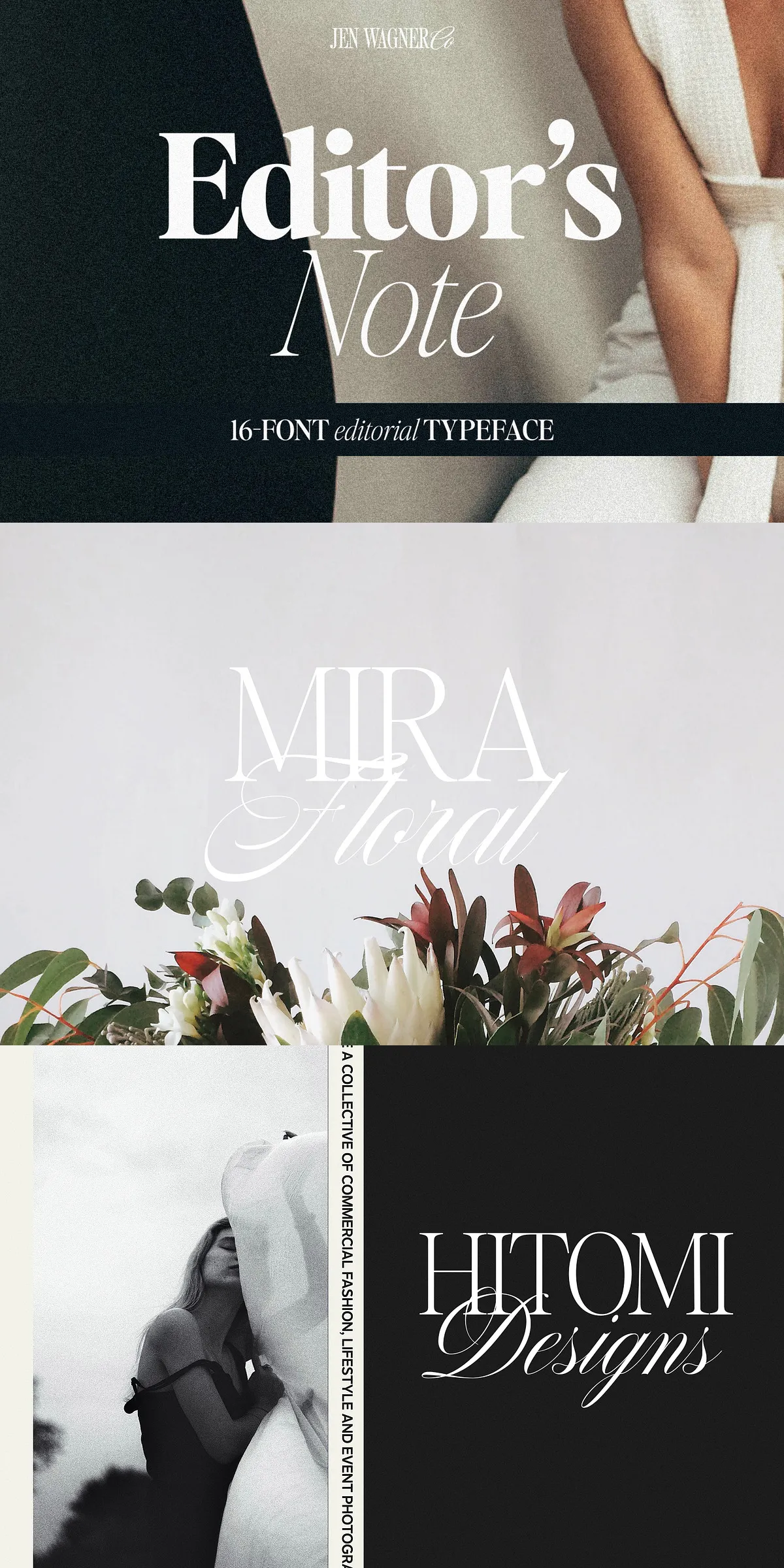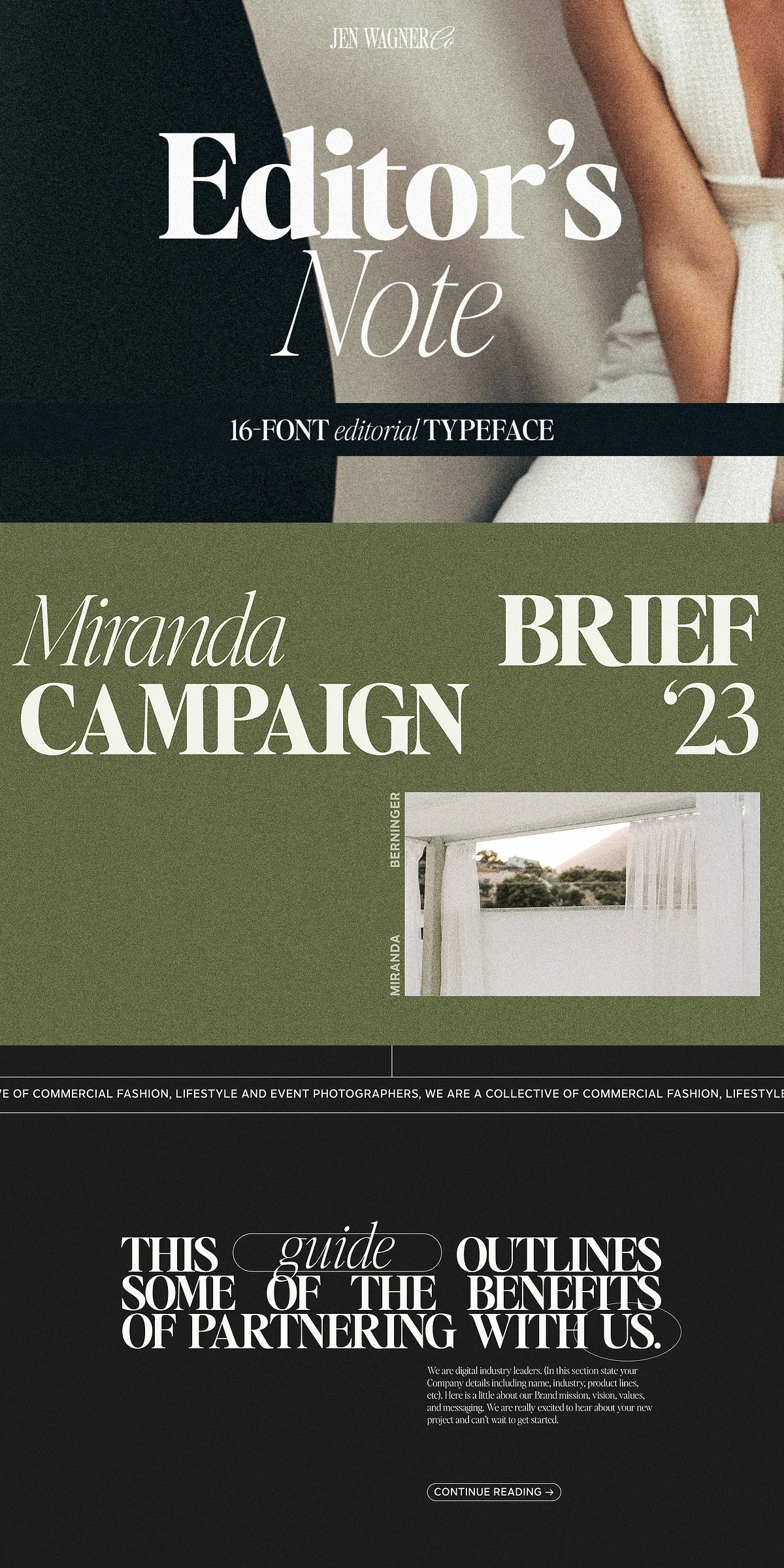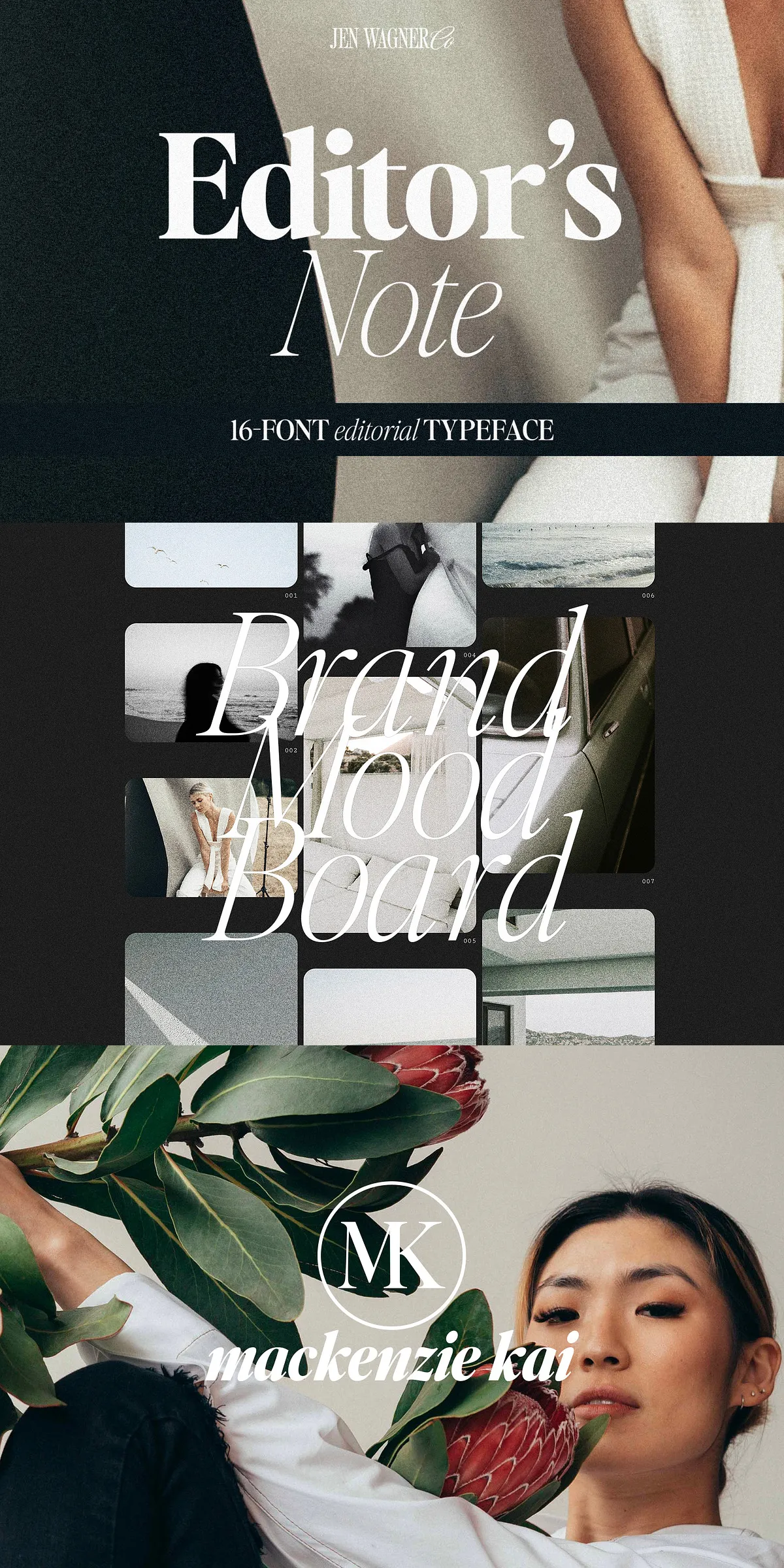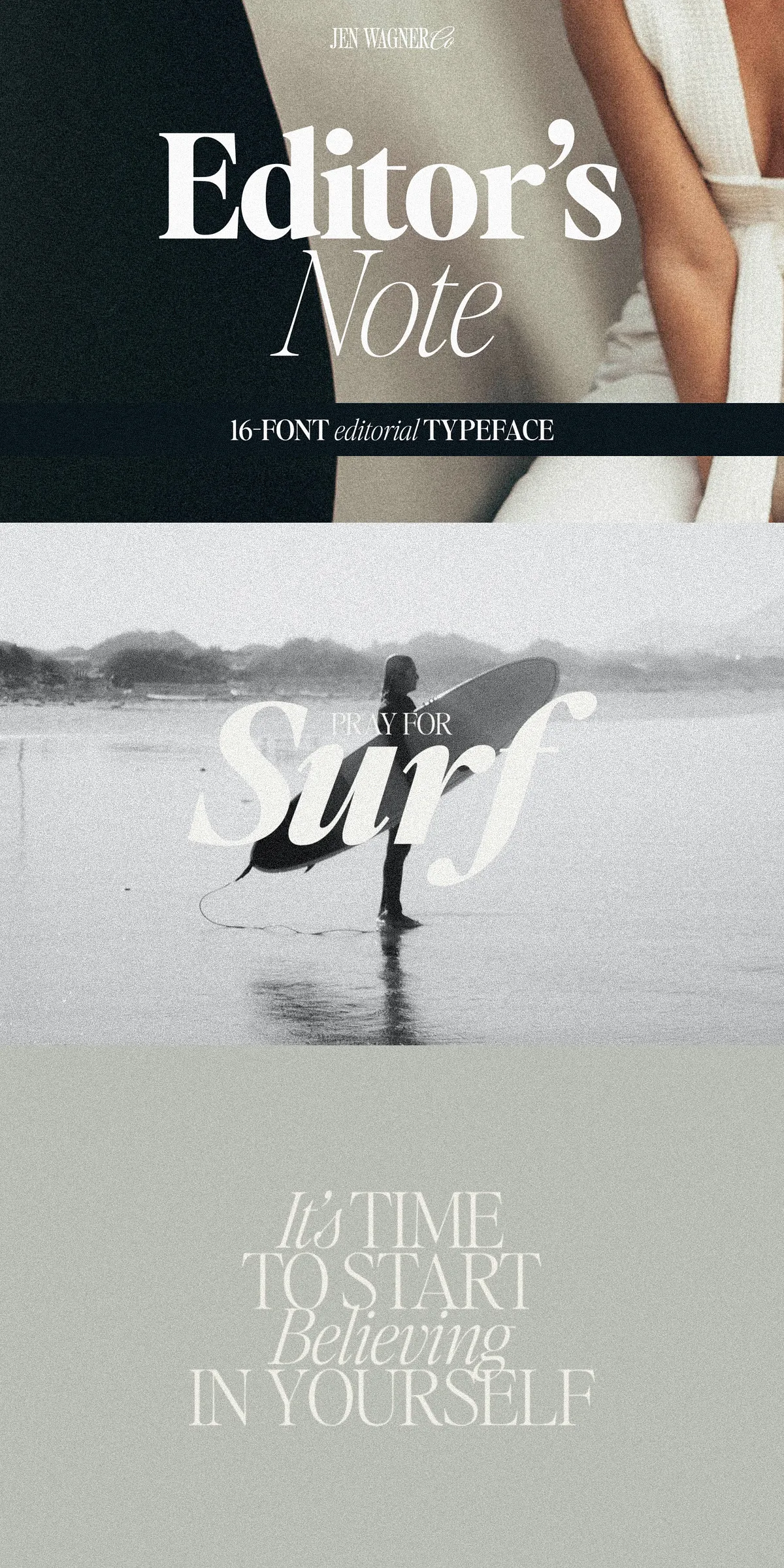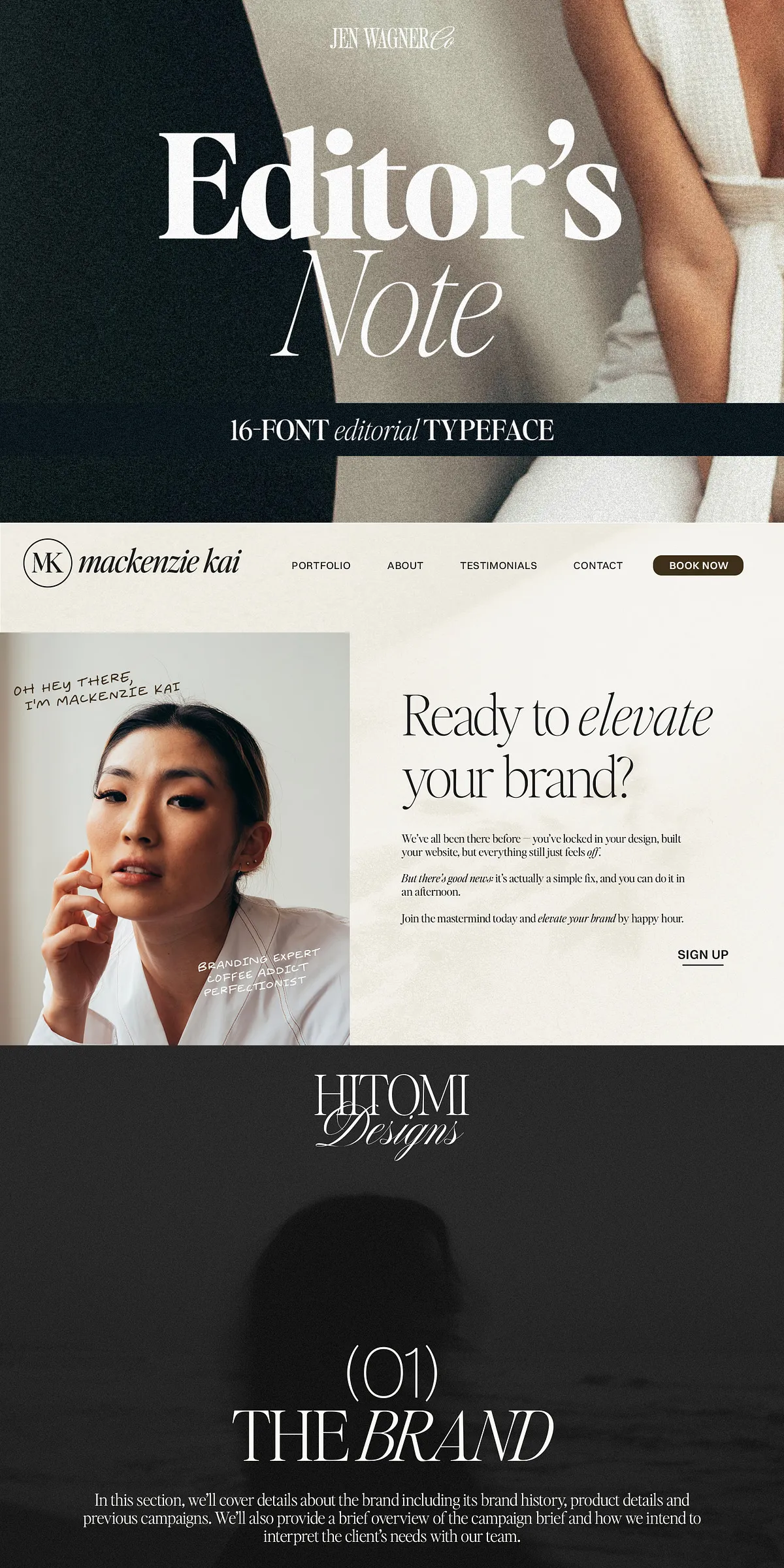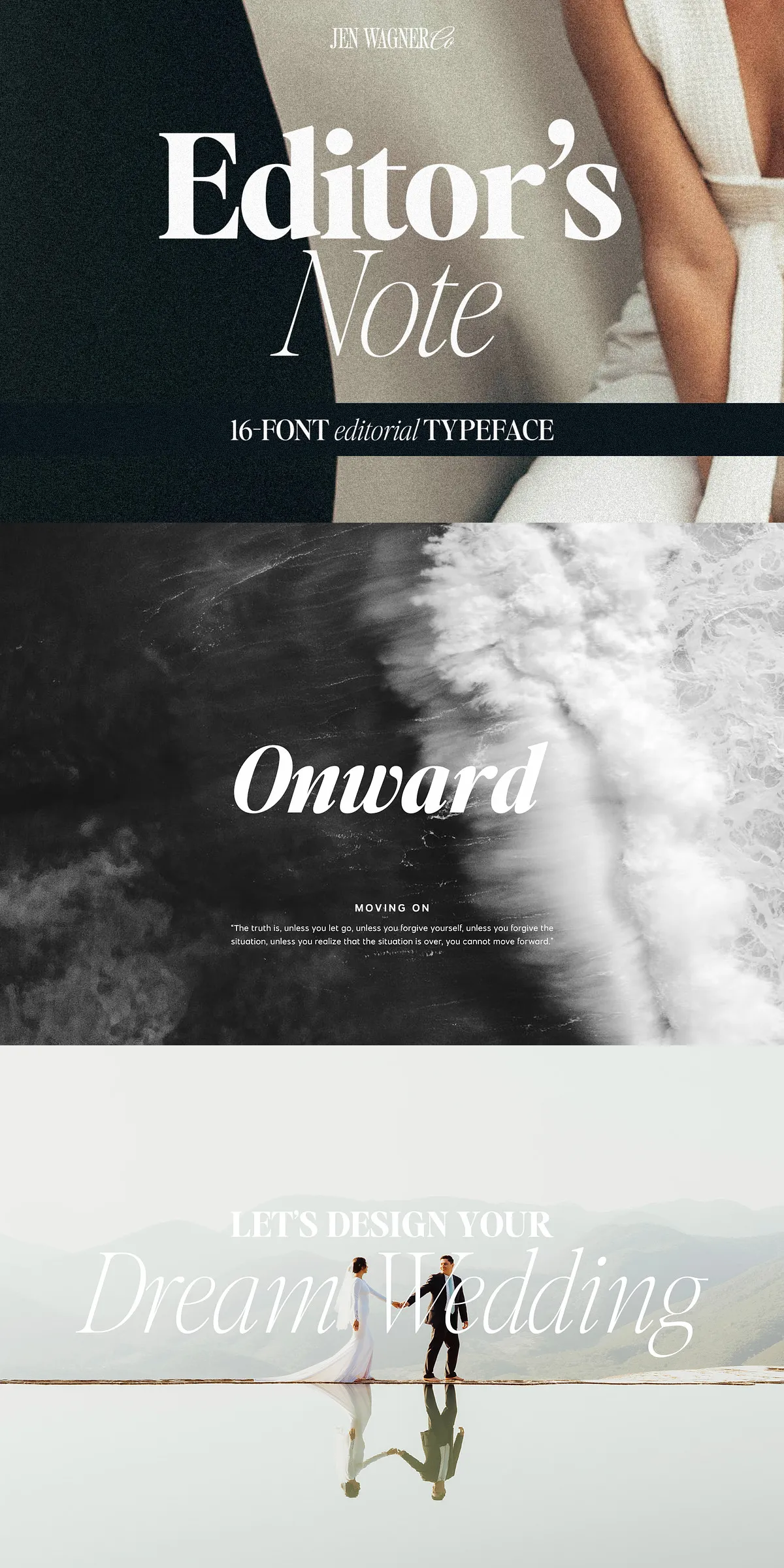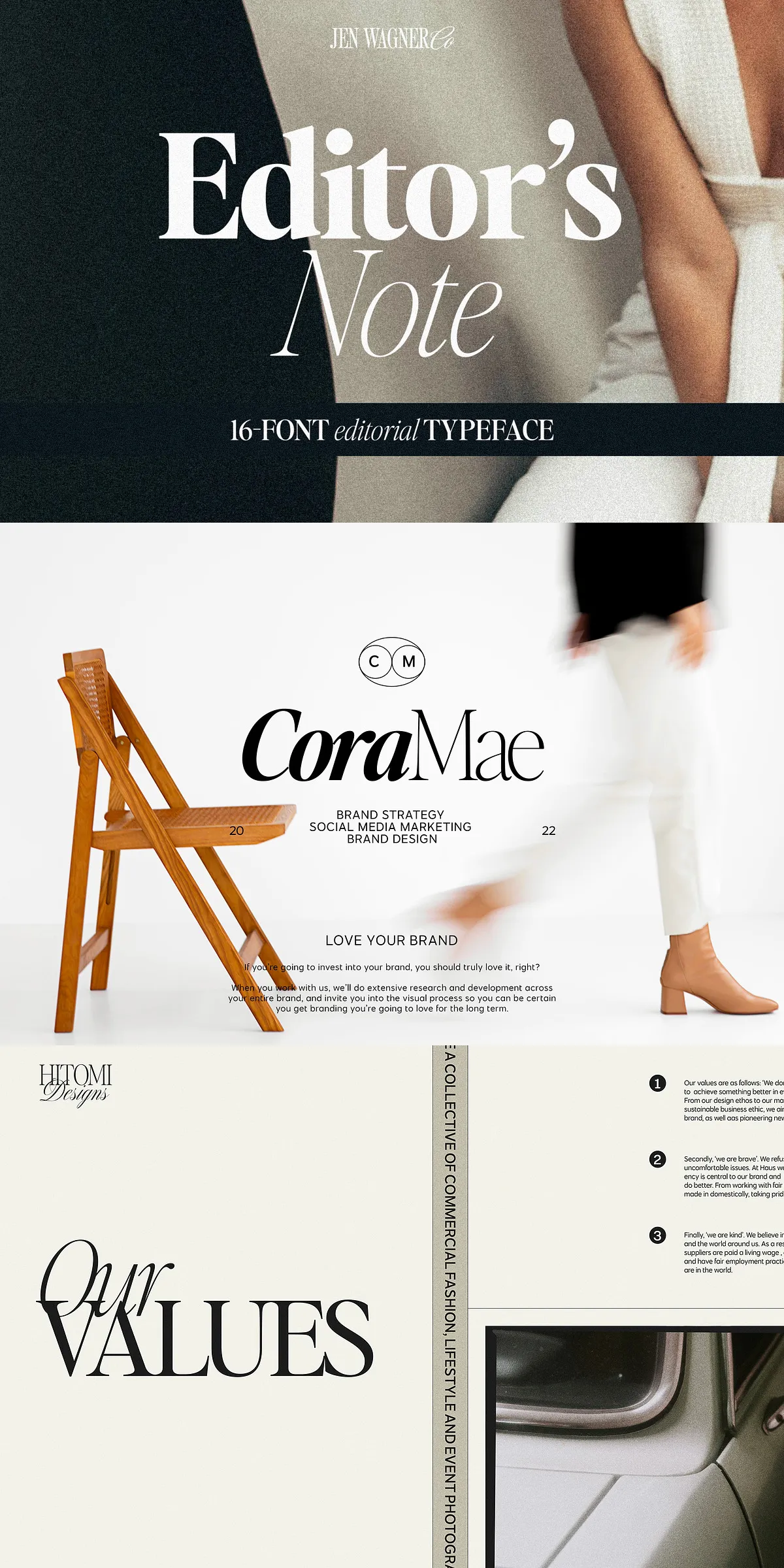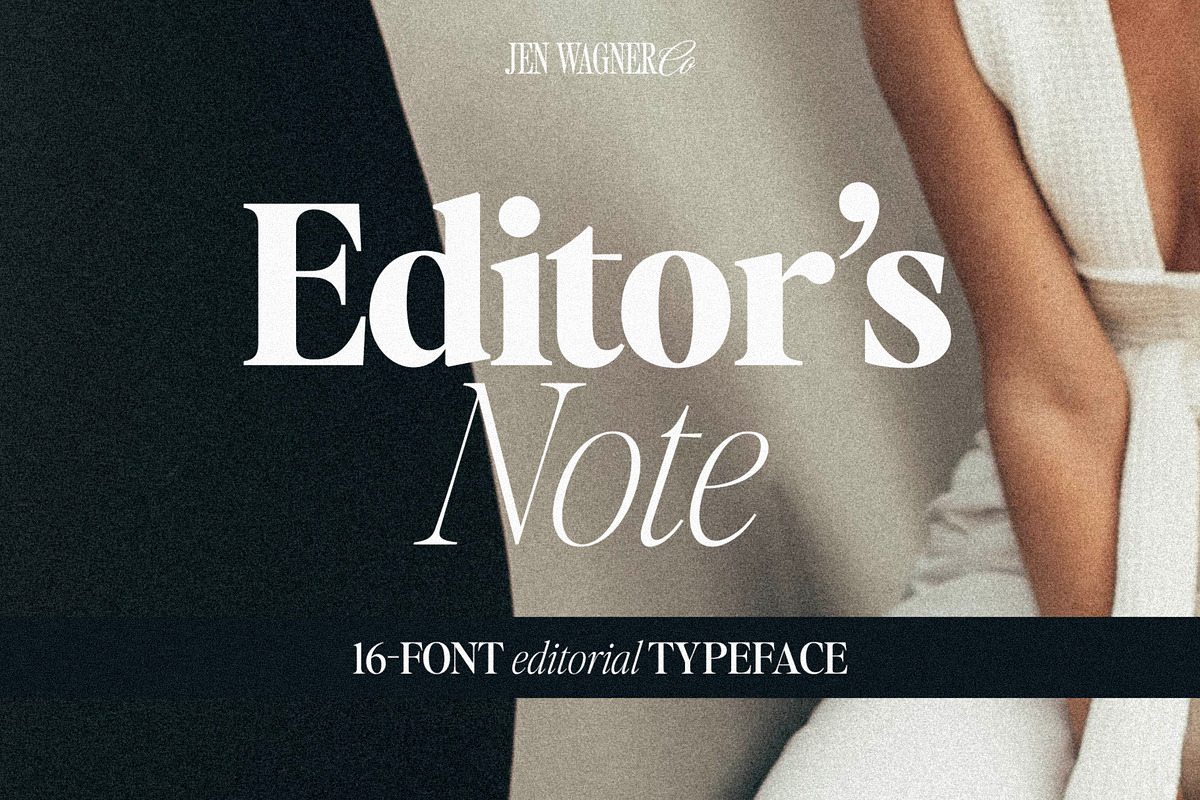
Editor’s Note 16Font Editorial Serif
Dive into the future of clean, confident typography with the Editor’s Note FAMILY — a bold, expansive evolution of the iconic Editor’s Note typeface. This isn’t just a font update — it’s a full typographic revolution. Now featuring a total of 16 uniquely crafted weights — from delicate Hairline to powerful Bold — each variant is engineered to deliver precision, clarity, and editorial flair. Whether you’re crafting bold headlines, striking quotes, premium branding, or immersive digital content, the Editor’s Note FAMILY gives you unmatched control and creative freedom.
Where Minimalism Meets Maximum Impact
Design trends come and go — but timeless editorial style endures. The Editor’s Note FAMILY thrives on that truth. With its razor-sharp lines, tightly controlled curves, and perfectly balanced proportions, this typeface captures the quiet confidence of modern minimalism. Every character is meticulously designed to enhance readability without sacrificing personality. It’s not just clean — it’s intentional. It’s not just minimal — it’s meaningful.
Use it in large display settings to command attention: headlines that stop the scroll, quotes that linger in the mind, calls to action that feel inevitable. The tight kerning and balanced spacing ensure visual harmony, even at extreme sizes. This is typography that doesn’t shout — it speaks with undeniable authority.
Master the Art of Letter Spacing
One of the defining features of the Editor’s Note FAMILY is its intentional letter spacing. Designed for clean, elegant reading, the default spacing is tailored for optimal flow in body text and moderate headlines. But want that daring, modern, all-caps look popularized in digital design? No problem. Simply tighten the tracking to between -20 and -35 to achieve that sleek, bold, contemporary aesthetic seen in top-tier design publications and social media visuals.
Pro tip: Pair the Regular weight with the Italic in contrasting text blocks — perfect for quotes, pull quotes, or narrative highlights. Use the Bold and Semibold for maximum impact in branding, product titles, or social media graphics.
Precisely Engineered for Every Project
The Editor’s Note FAMILY isn’t just beautiful — it’s built for performance. Every weight comes in both Regular and Italic variants, with full support for uppercase and lowercase letters, numerals, punctuation, and diacritics. It also includes robust multilingual support, covering Western European, Central European, and extended Latin-based languages. Ideal for global brands, multilingual publications, and international design agencies.
Key features include:
• 16 Distinct Weights: Hairline, Thin, Extralight, Light, Regular, Medium, Semibold, Bold — each weight tuned for specific uses and visual hierarchy.
• Full Italic Variants: Add rhythm, motion, and elegance through fluid, naturally swaying italics.
• Advanced Typographic Tools: Includes ligatures, stylistic sets, and OpenType features for seamless integration into high-end design workflows.
• High-Resolution Rendering: Optimized for sharp display on screens, tablets, and print, regardless of size or resolution.
Built to Transform Your Creative Vision
From digital design to print branding, from editorial layouts to social content, the Editor’s Note FAMILY transforms how your messages are received.
• Branding & Logos: Create identities that feel modern, minimalist, and instantly recognizable. Its clean structure ensures scalability and clarity at any size.
• Magazines & Publications: Design chapter headings, bylines, and article titles with a sense of order, clarity, and sophistication.
• Web & UI Design: Use with WOFF2 for fast loading and smooth rendering. Ideal for menus, hero sections, and interactive elements where clarity and speed matter.
• Social Media & Motion Graphics: Produce eye-catching quotes, story elements, and title cards with a premium, editorial-grade look.
Typography That Doesn’t Just Speak — It Commands
With the Editor’s Note FAMILY, your words gain power. You’re not just choosing a font — you’re selecting a design philosophy. This is typeface design that balances function and beauty, precision and emotion. It’s the difference between blending in and standing out.
Let your message be clear. Let your brand be bold. Let your design be timeless.